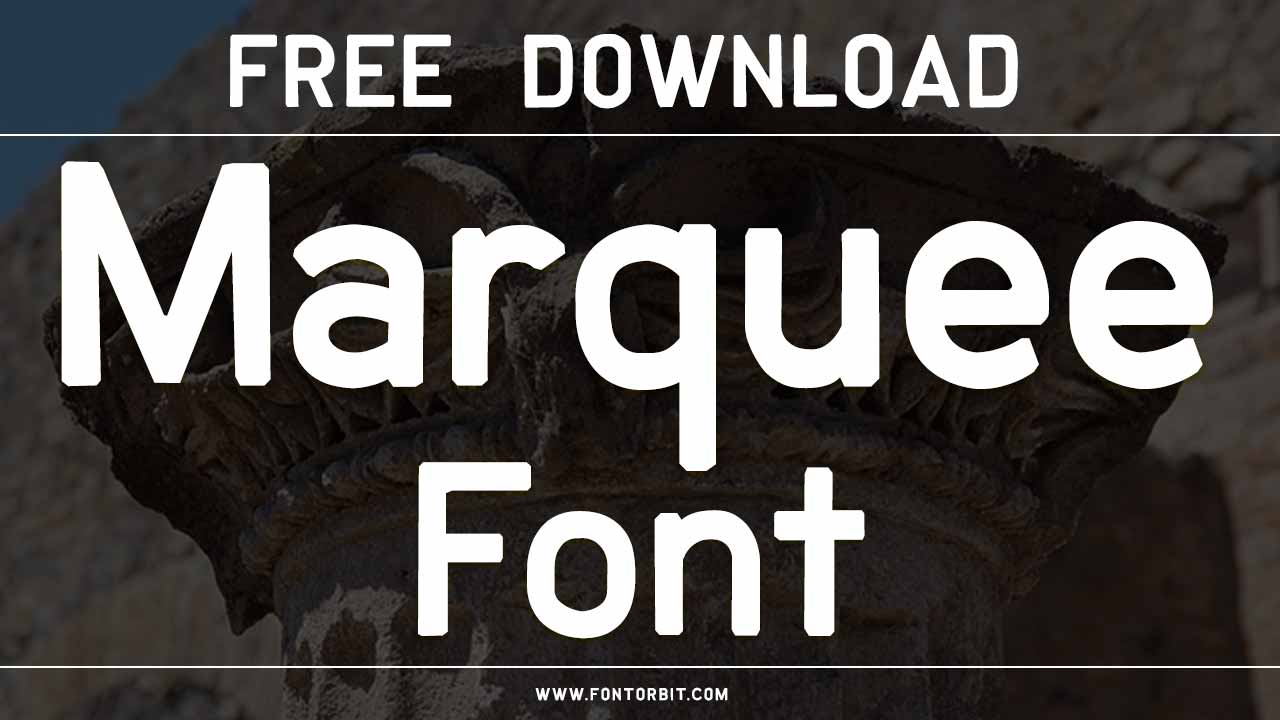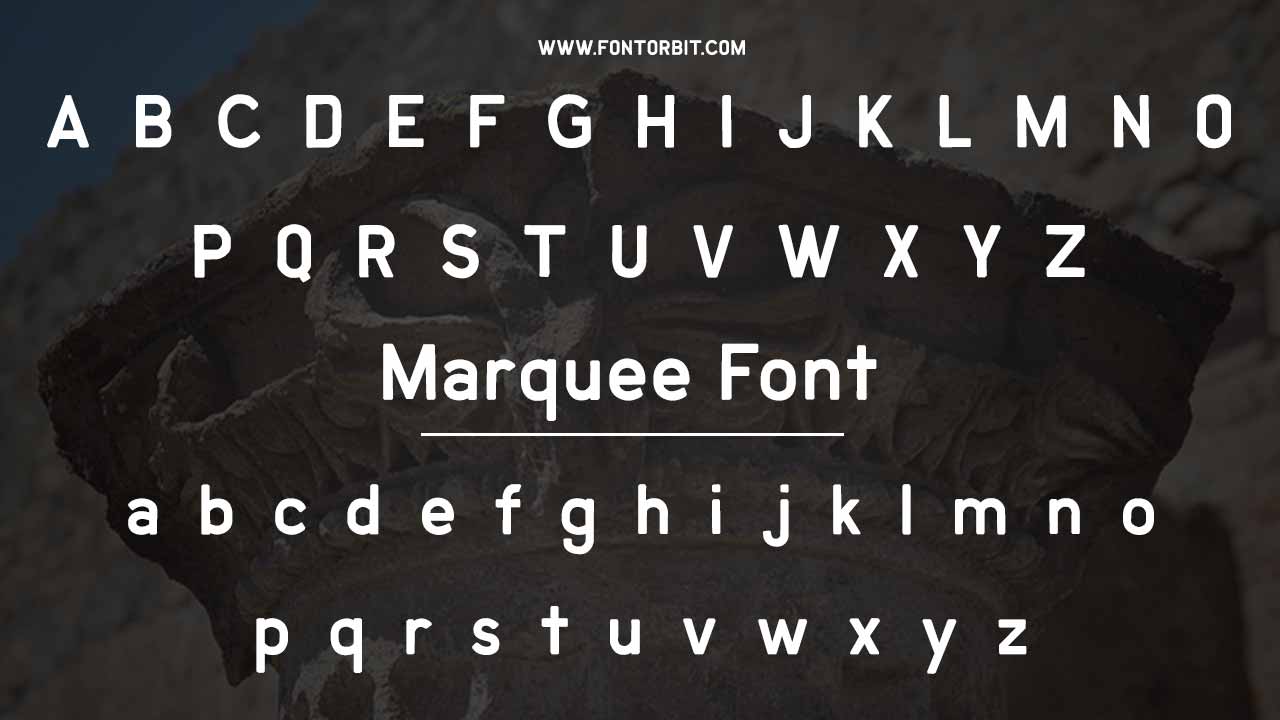
Marquee Font, designed by Pablo A. Medina, is a unique typeface inspired by the iconic theatre marquee signs that once lit up New York City. This font brings a vintage charm while staying adaptable to modern design needs. Whether for signage, advertising, business branding, or digital illustrations, its aesthetic appeal makes it a standout choice in typography trends.
The Timeless Appeal Of Marquee Fonts
Marquee fonts are recognized for their bold lettering, often resembling the marquee letters seen in old movie theatres. These fonts, especially the Marquee Light variation, capture the essence of illuminated signs and marquee light bulbs. They are ideal for product packaging, posters, and advertising. Their nostalgic yet readable style makes them a favourite for both print and digital media.
Why Choose A Marquee Typeface?
Theatre marquee signs have long been a staple in entertainment and retail. Their bold letters and distinctive special characters make them perfect for logos, flyers, and commercial use. The Marquee Font family includes different weights, ensuring flexibility for various applications.
Marquee Font Family
- Marquee ExtraLight
- Marquee Light
- Marquee Regular
Marquee Font In Digital And Print Design
For structured, readable fonts, Lucida Console shares a similar look but lacks the vintage charm of Marquee.
Typography And Special Characters
Typography defines a brand’s identity. Marquee fonts include distinct letters, numbers, and special characters reminiscent of vintage signage, making them ideal for engaging designs.
Choosing The Right Color And Size
Color and size play a crucial role in marquee fonts. Whether for a theatre marquee sign or website banner, selecting the right color combinations enhances the impact. Light fonts contrast well with dark backgrounds, while warm tones add a retro feel.
Marquee Font is a timeless typeface that blends retro charm with modern design. Whether creating illustrations, branding, or a marquee sign, this font adds character and appeal. Its versatility across print, web, and digital platforms makes it an essential tool for designers.
1. What Is Marquee Font Best Used For?
Marquee Font is ideal for signage, advertising, and branding due to its bold and readable typography. It works well for posters, flyers, and product packaging, bringing a nostalgic yet modern feel to designs. Whether creating a marquee sign, a logo, or an eye-catching title, this font enhances visual appeal.
2. What Styles Are Included In The Marquee Font Family?
The Marquee Font family includes:
- Marquee ExtraLight – A thin, elegant version for subtle designs
- Marquee Light – Balanced weight, perfect for captions, illustrations, and advertising
- Marquee Regular – A bold, impactful style suited for signage and business branding
5. Does Marquee Font Support Special Characters?
Yes, Marquee letters include various special characters, symbols, and an extensive alphabet to accommodate different design needs. This makes it an excellent choice for detailed content, including captions settings, decorative letters, and number-based layouts.
7. How Do Color And Size Impact Marquee Font’s Effectiveness?
The right colour and size enhance the detail and visibility of Marquee fonts. Light-coloured fonts contrast well against dark backgrounds, while warm hues replicate the effect of a glowing theatre marquee sign. Adjusting the number size and weight ensures readability in captions, logos, and business signage.